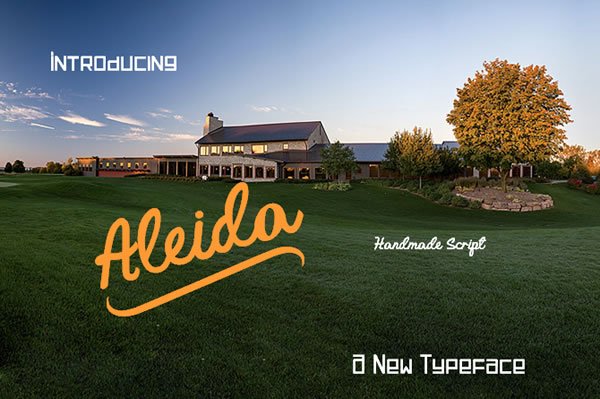
Introduction to Aleida Font
Aleida is a handmade typeface created by Jaime Rangel Castro.
It’s suitable for many types of projects such as logos, posters, apparel printing, labels, quotes,headlines and more .
Key Features of Aleida Font